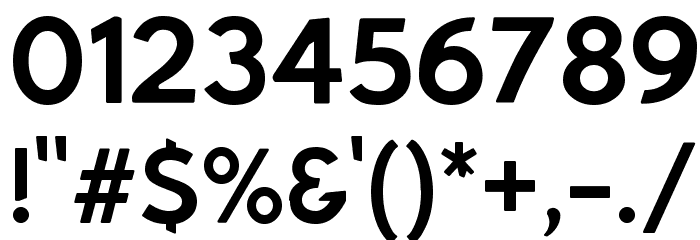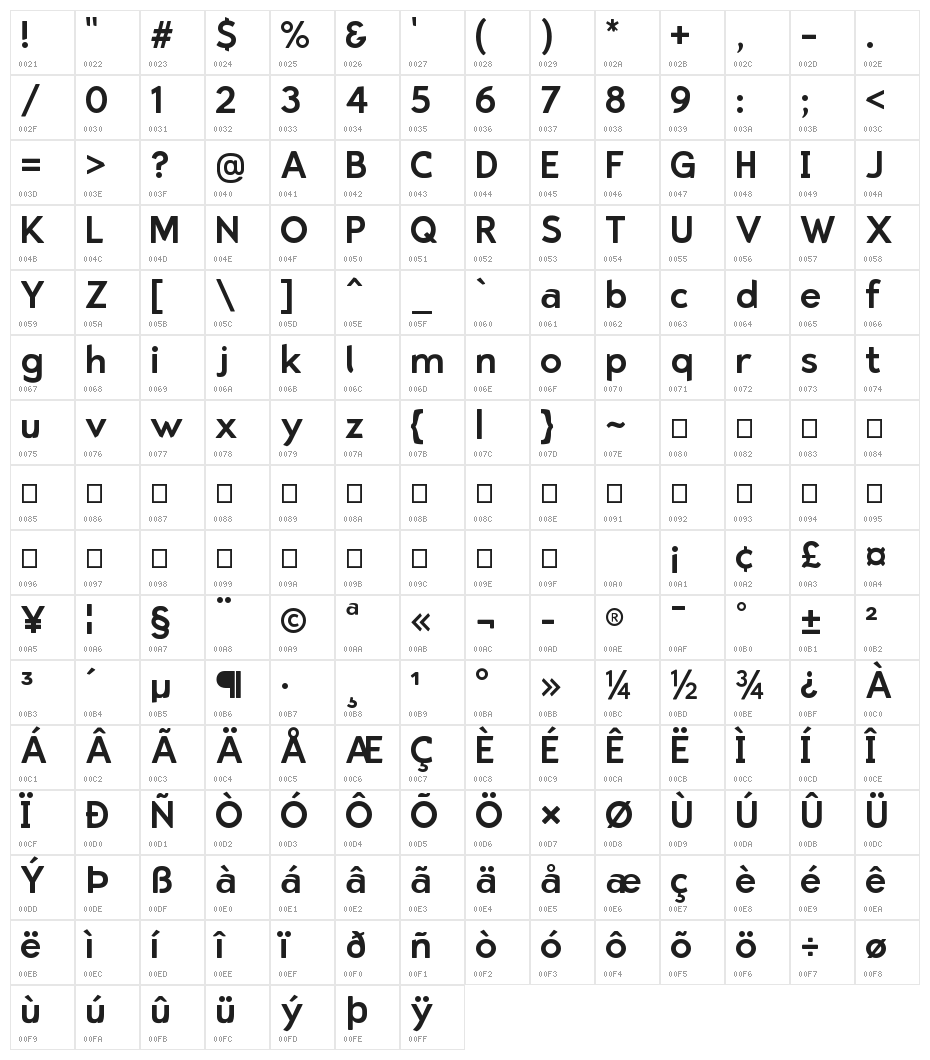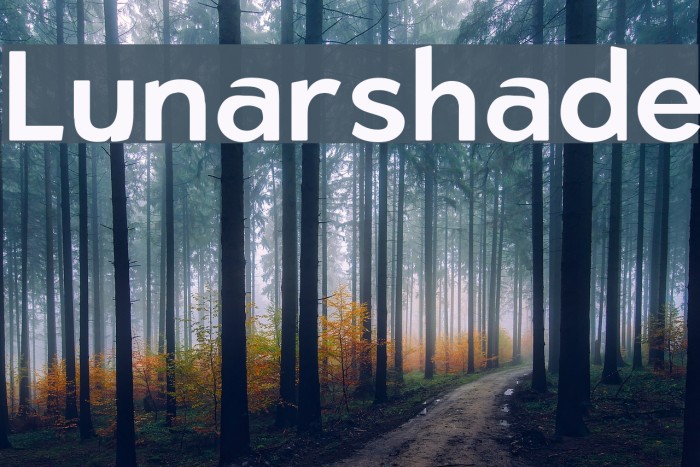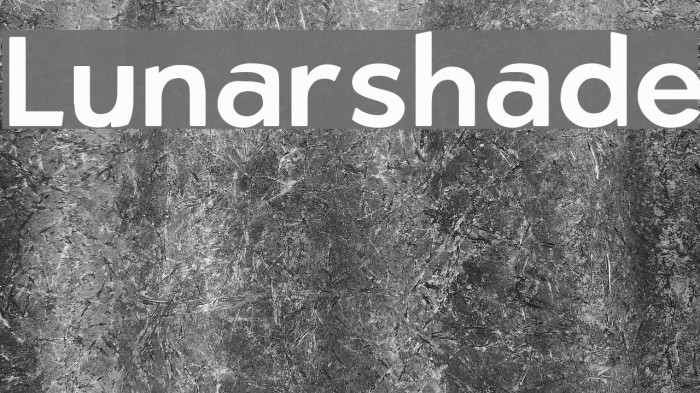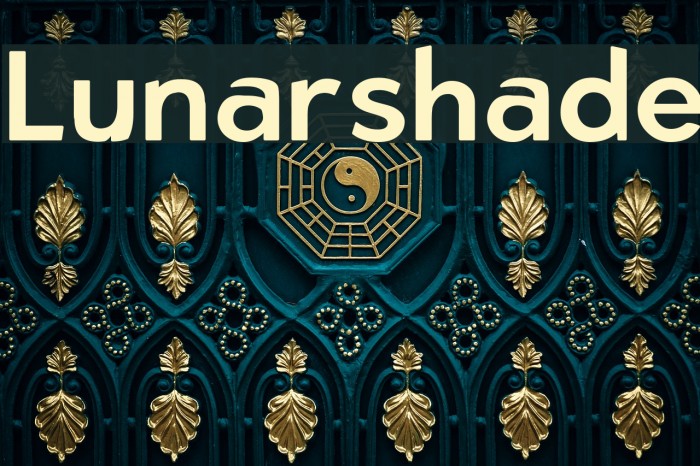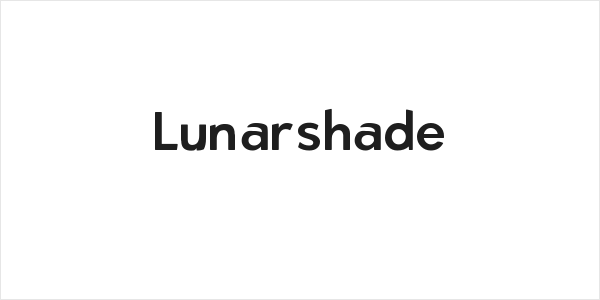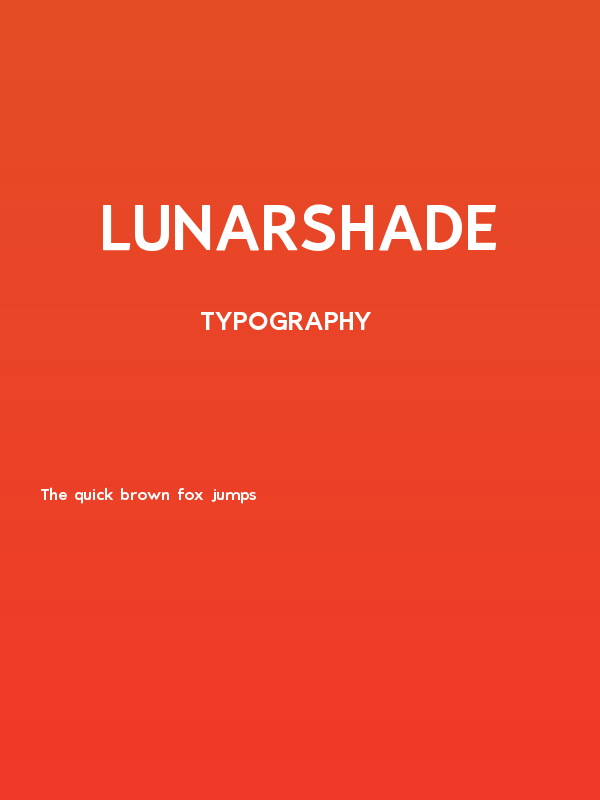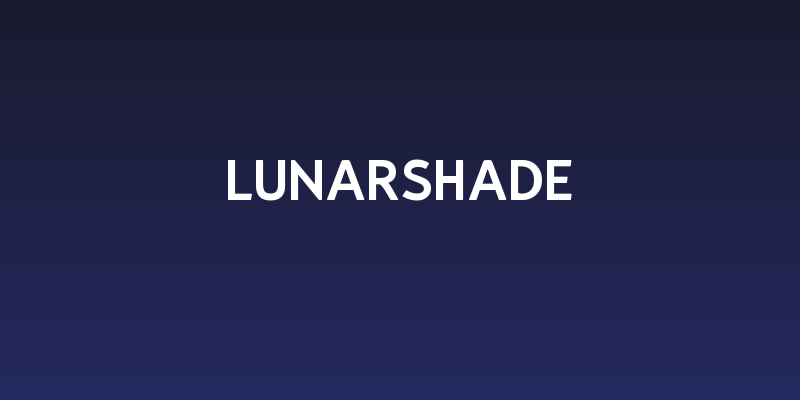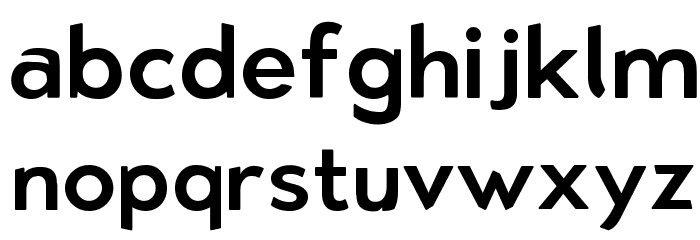
Lunarshade Font
Lunarshade Description
This font features a clean and modern sans-serif design with a bold and confident appearance. The characters are well-proportioned, with a consistent stroke width that provides a uniform look across all letters and numbers. The uppercase letters are slightly taller than the lowercase, adding a touch of elegance and readability. The numerals are clear and distinct, making them suitable for both display and text purposes. Special characters are included, maintaining the same bold style, which enhances the font's versatility. Its simplicity and clarity make it ideal for a wide range of applications.
| Use Case | Headlines, Logos, Digital content |
| Proposed Projects | Ideal for branding, advertising, headlines, and digital content where clarity and impact are essential. |